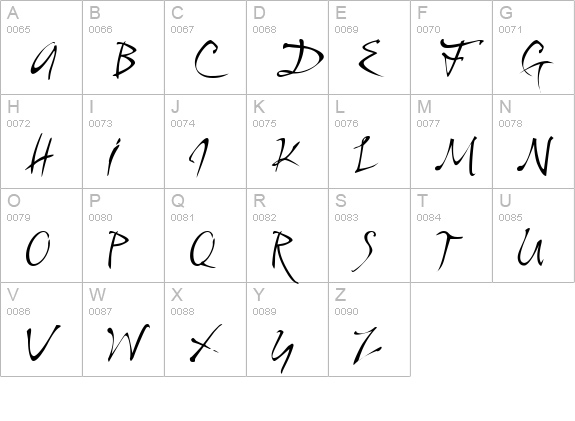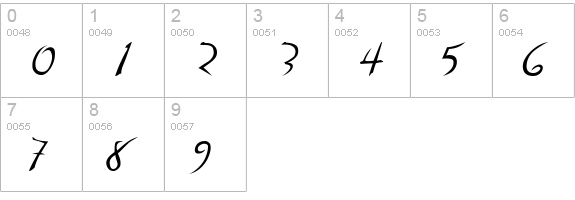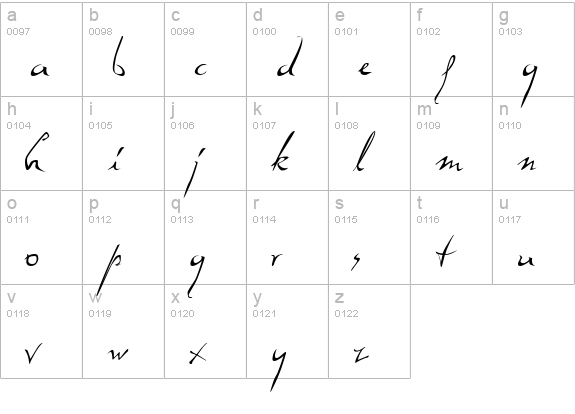
Dali font is a visually striking typeface that effortlessly combines elegance and creativity. With its unique and intricate design, this font captures attention and adds a touch of sophistication to any project. The Dali font features bold and fluid curves, resembling the surreal and dreamlike art style of Salvador Dali himself. Each letter is carefully crafted with meticulous attention to detail, resulting in a truly captivating and memorable typeface. One of the most remarkable aspects of Dali font is that it is completely free. Yes, you read that right - this stunning font is freely available to download at FontsMarket.com. Whether you are a professional designer, a student, or simply someone with a passion for typography, you can effortlessly access and utilize this incredible font without any cost. Whether it's for branding, advertising, packaging, or any other design project, Dali font will undoubtedly elevate your work to new heights. Its versatility allows it to be used in a wide range of contexts, from digital media to print materials, ensuring that your message is conveyed with utmost style and impact. Furthermore, the Dali font is incredibly easy to use, making it accessible to designers of all skill levels. Its clean and legible characters ensure that your text remains readable and visually appealing, even at smaller sizes. Don't miss the opportunity to enhance your design projects with the mesmerizing Dali font. Download it for free at FontsMarket.com and unlock a world of unlimited creative possibilities. Let your imagination soar and watch as this font breathes life into your designs, leaving a lasting impression on your audience.